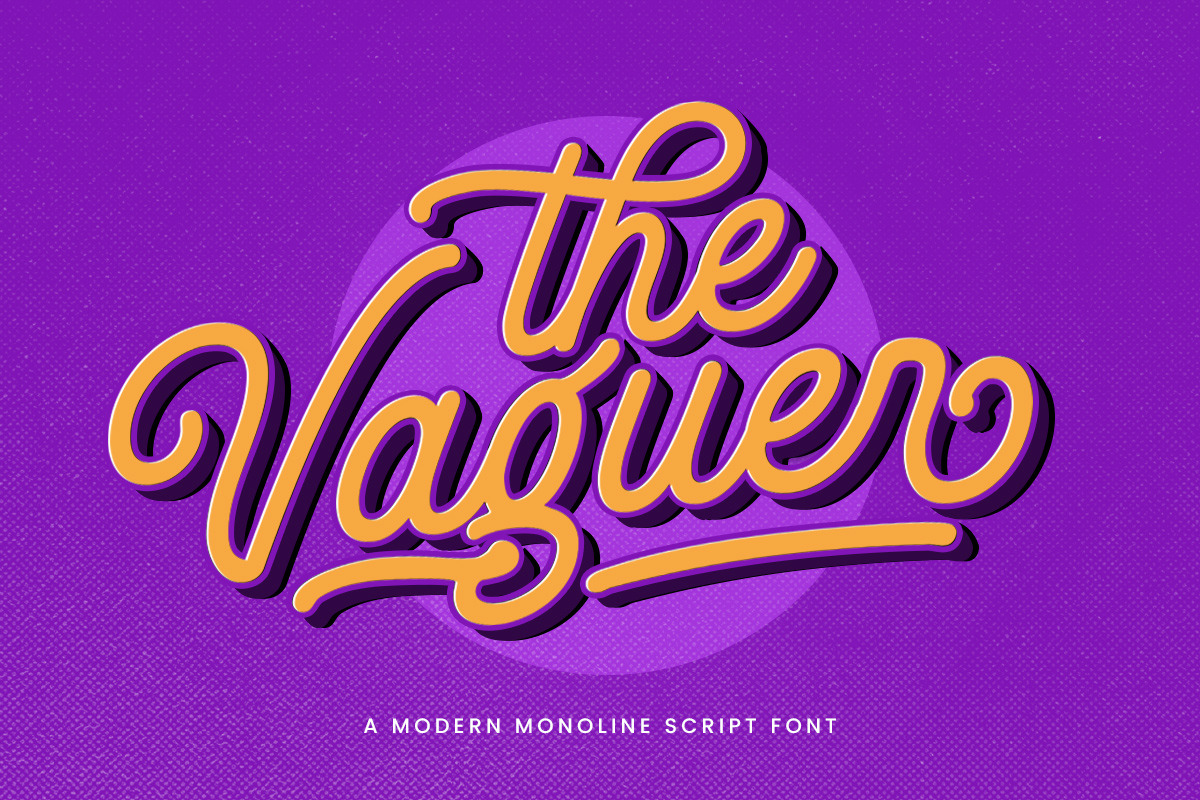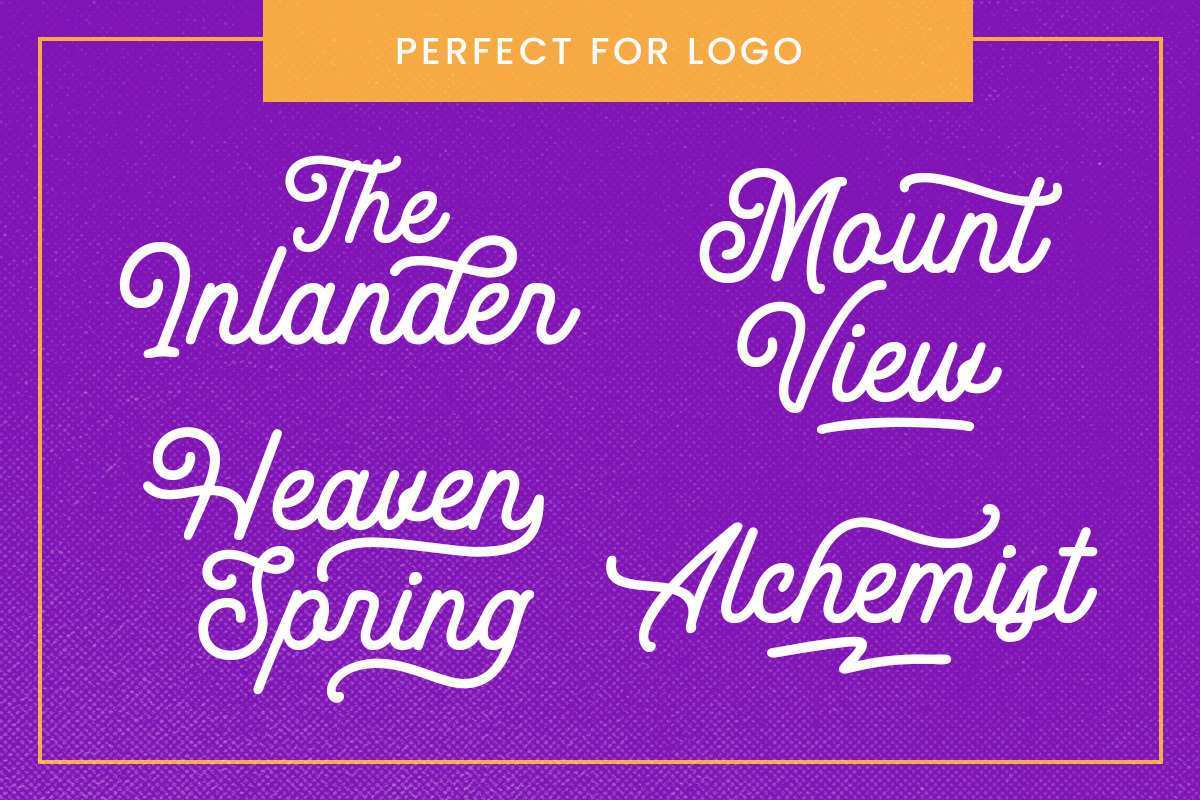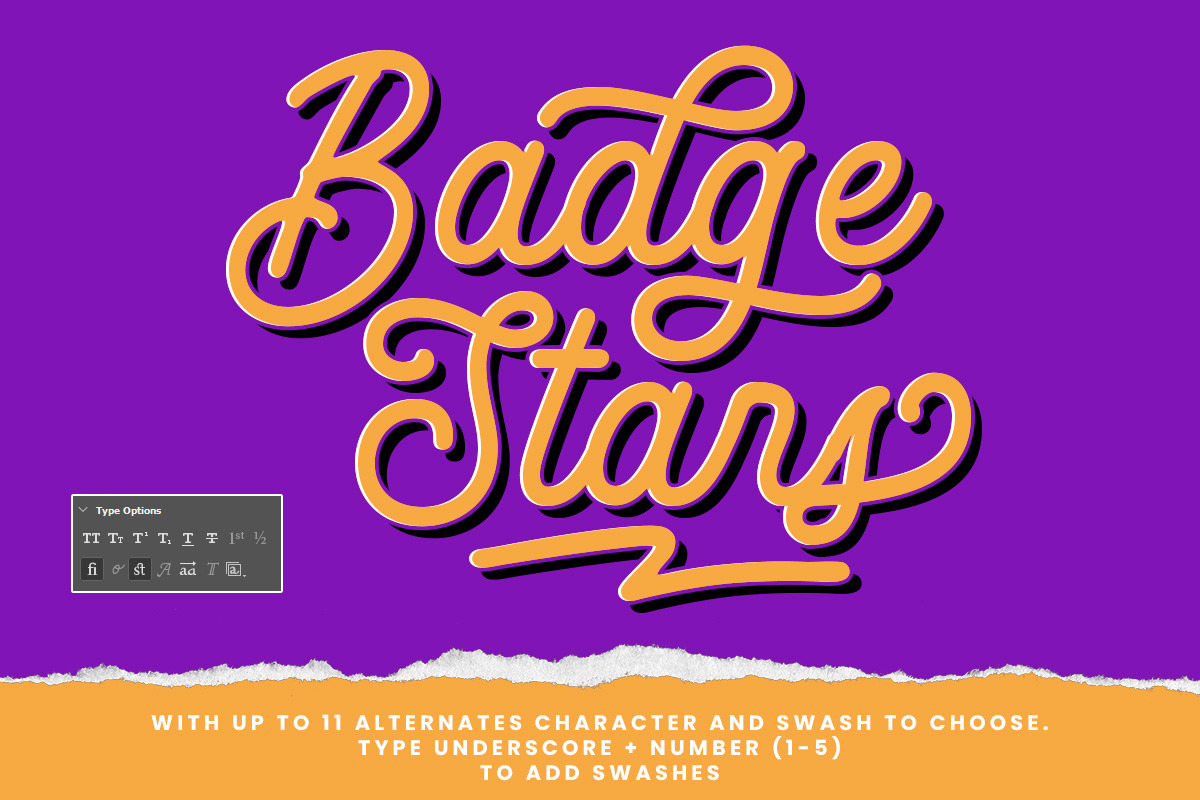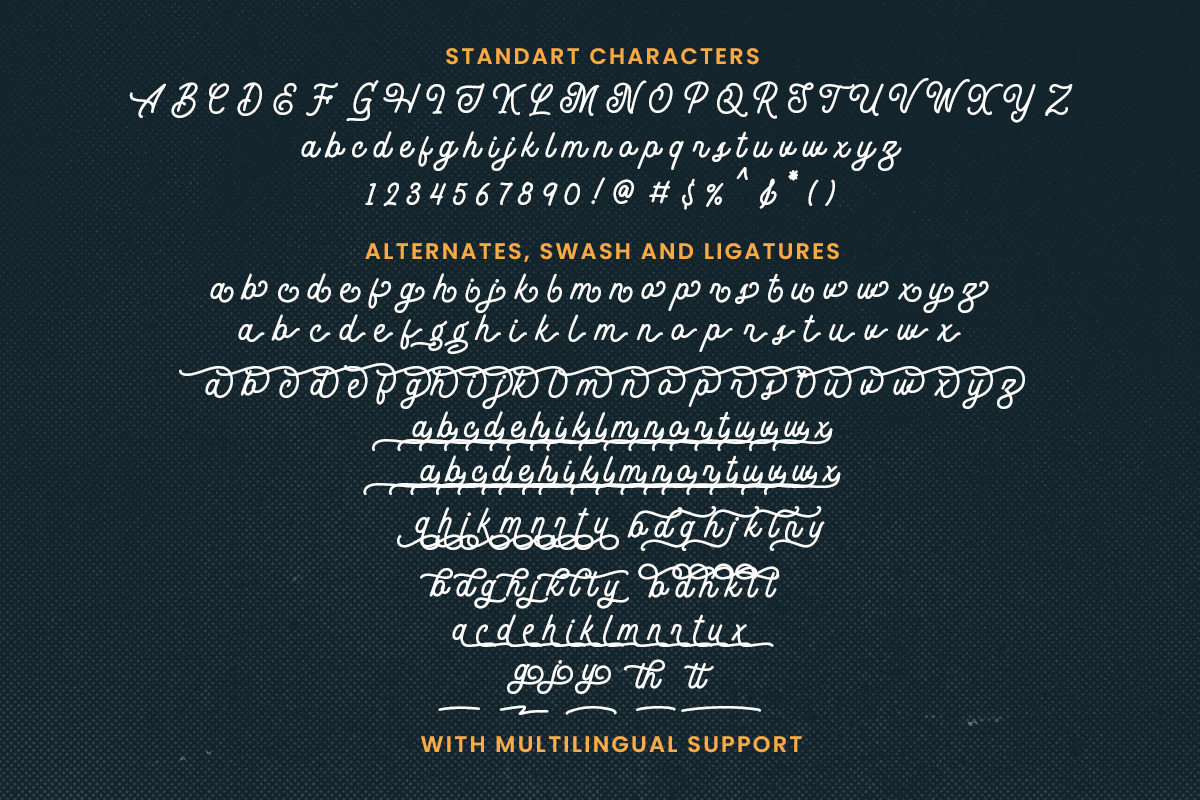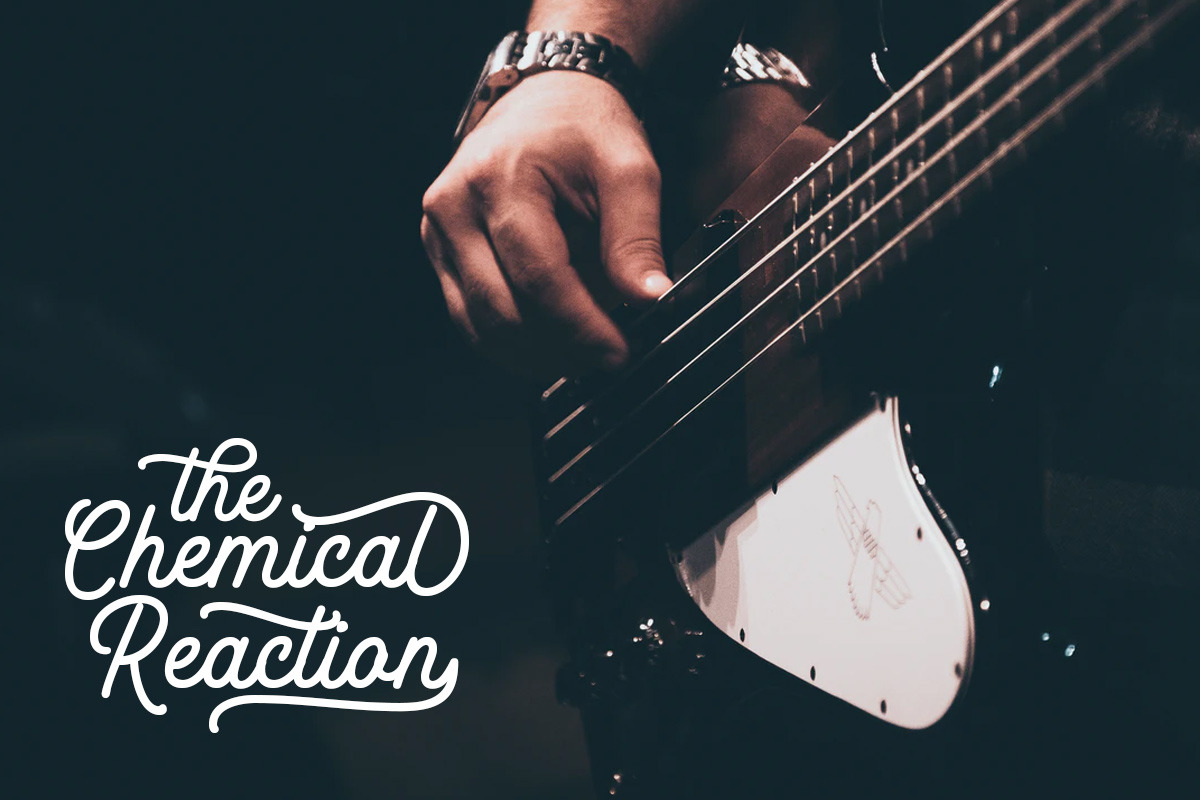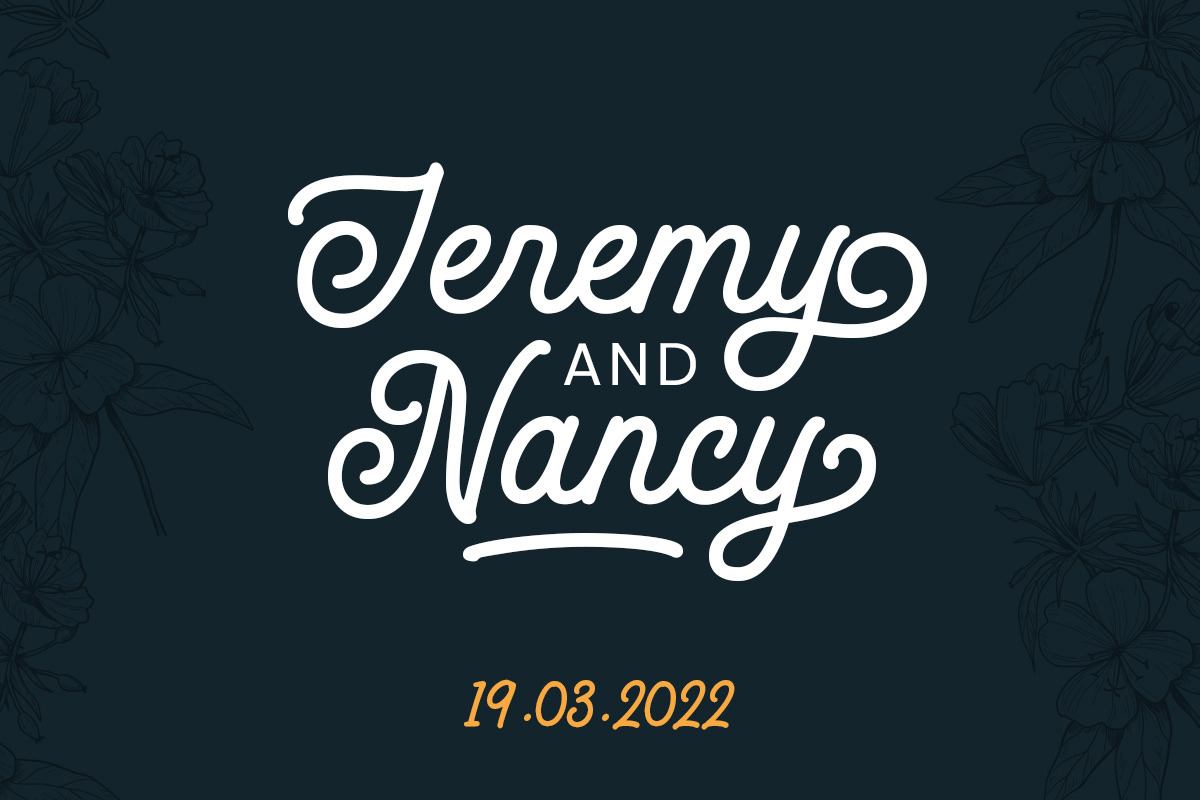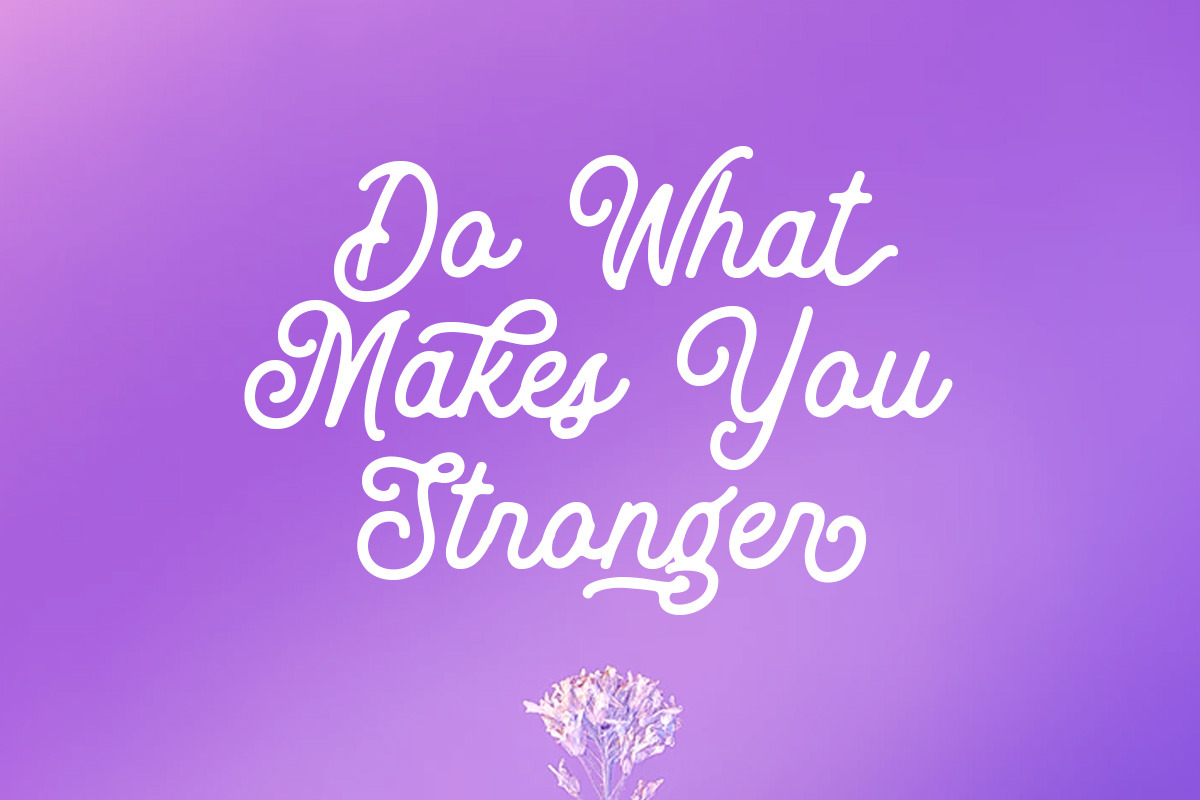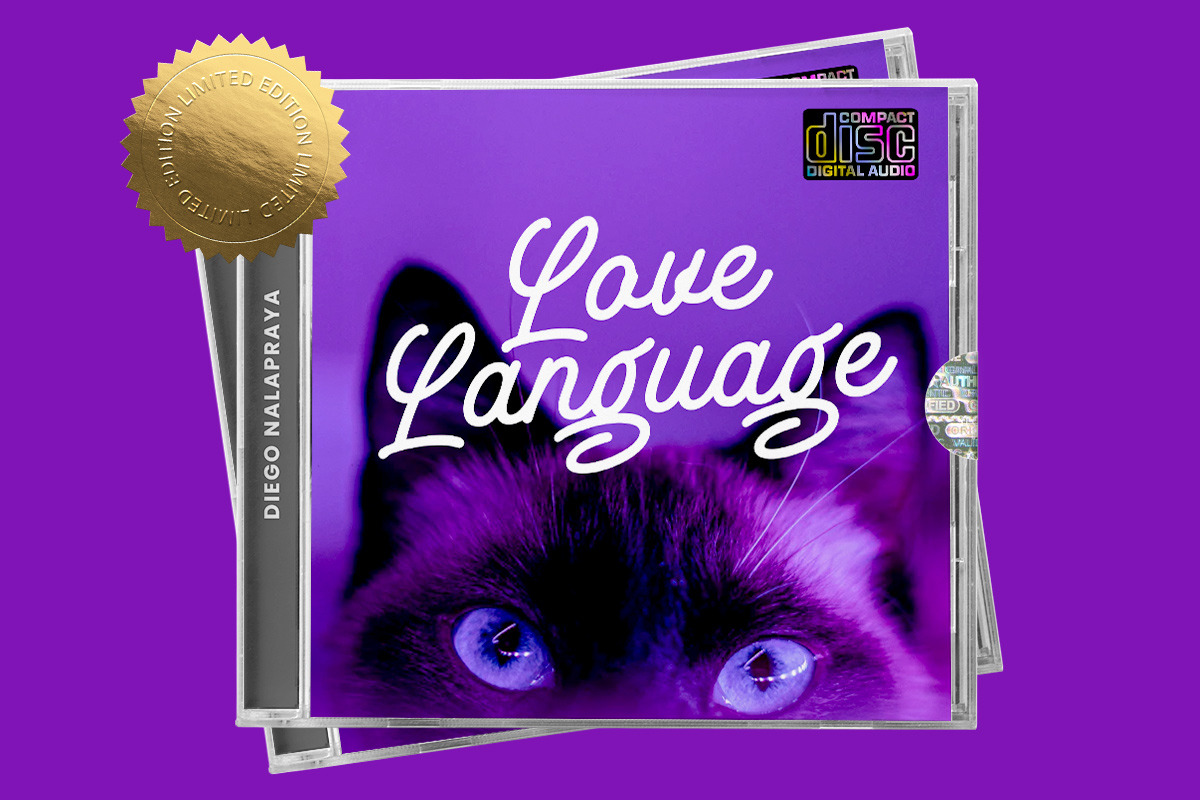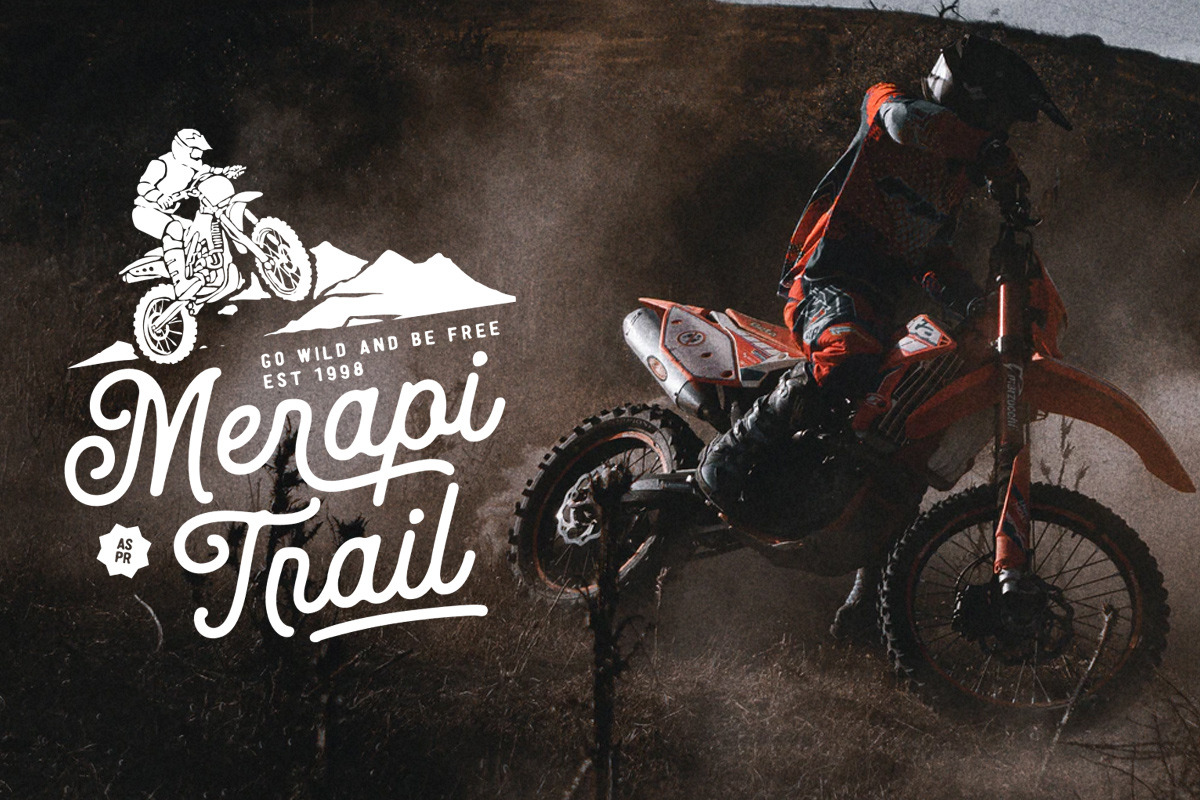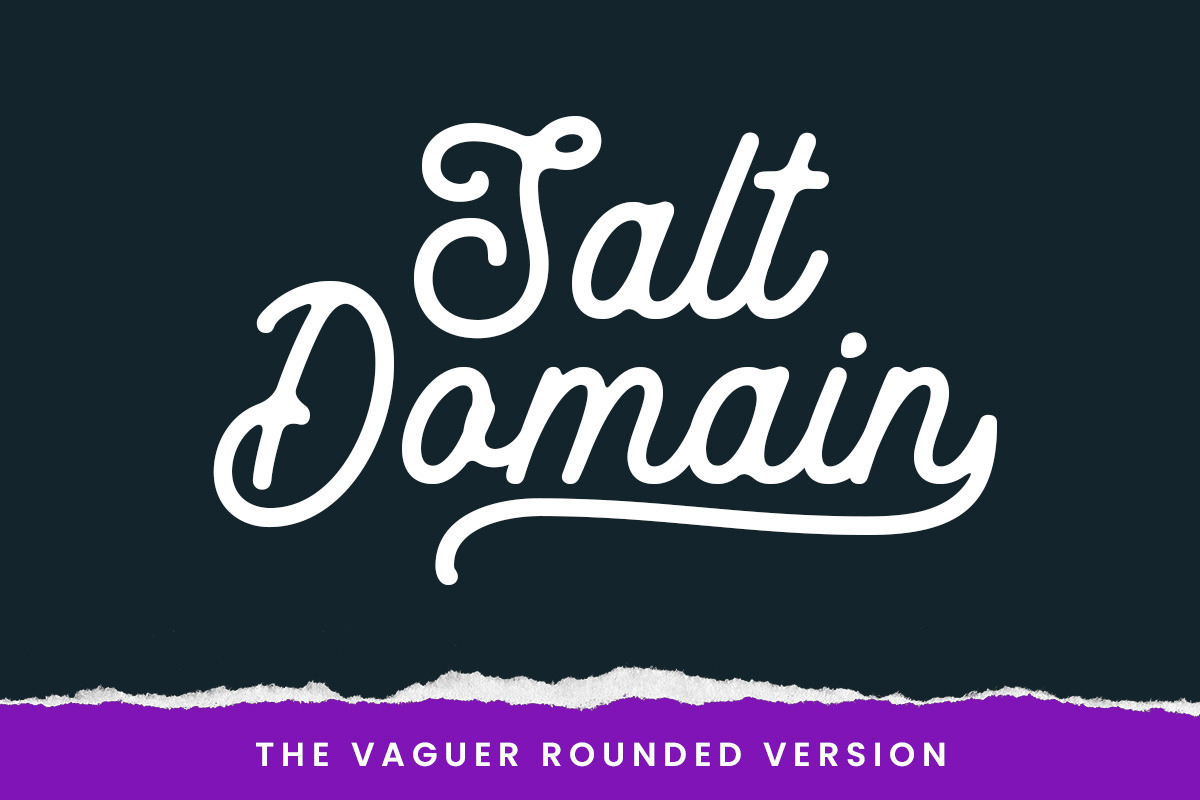
The Vaguer - Modern Monoline Font
Proudly Introducing my latest font. The Vaguer!
The Vaguer is a very special font. because this font takes some time in the manufacturing process because I want to make a font that can adapt to modern design needs and can also look organic with the rounded version. In addition, The Vaguer has tons of Opentype features to choose from, such as alternates characters, ligatures and swashes and is equipped with multilingual support. This font is very able to meet your needs to create designs ranging from logos, quotes, branding, you name it!